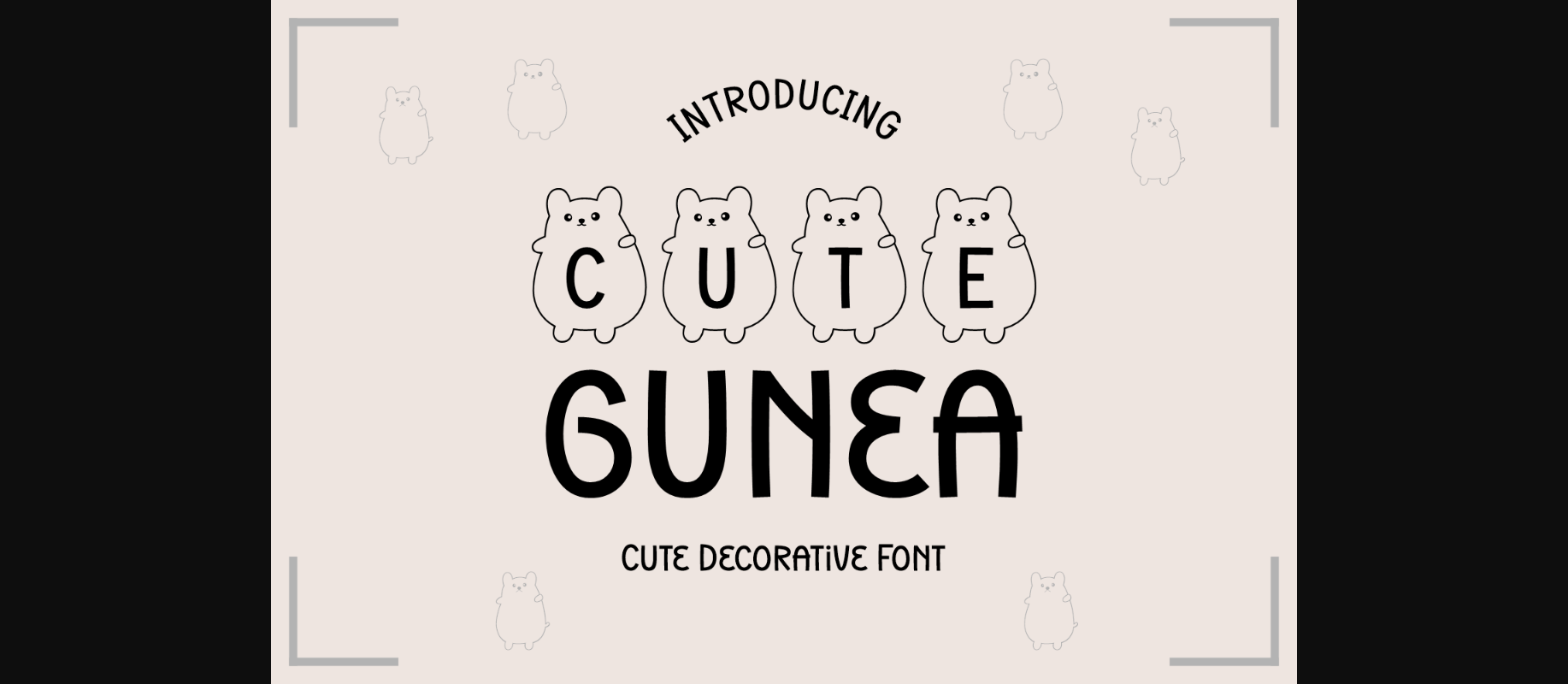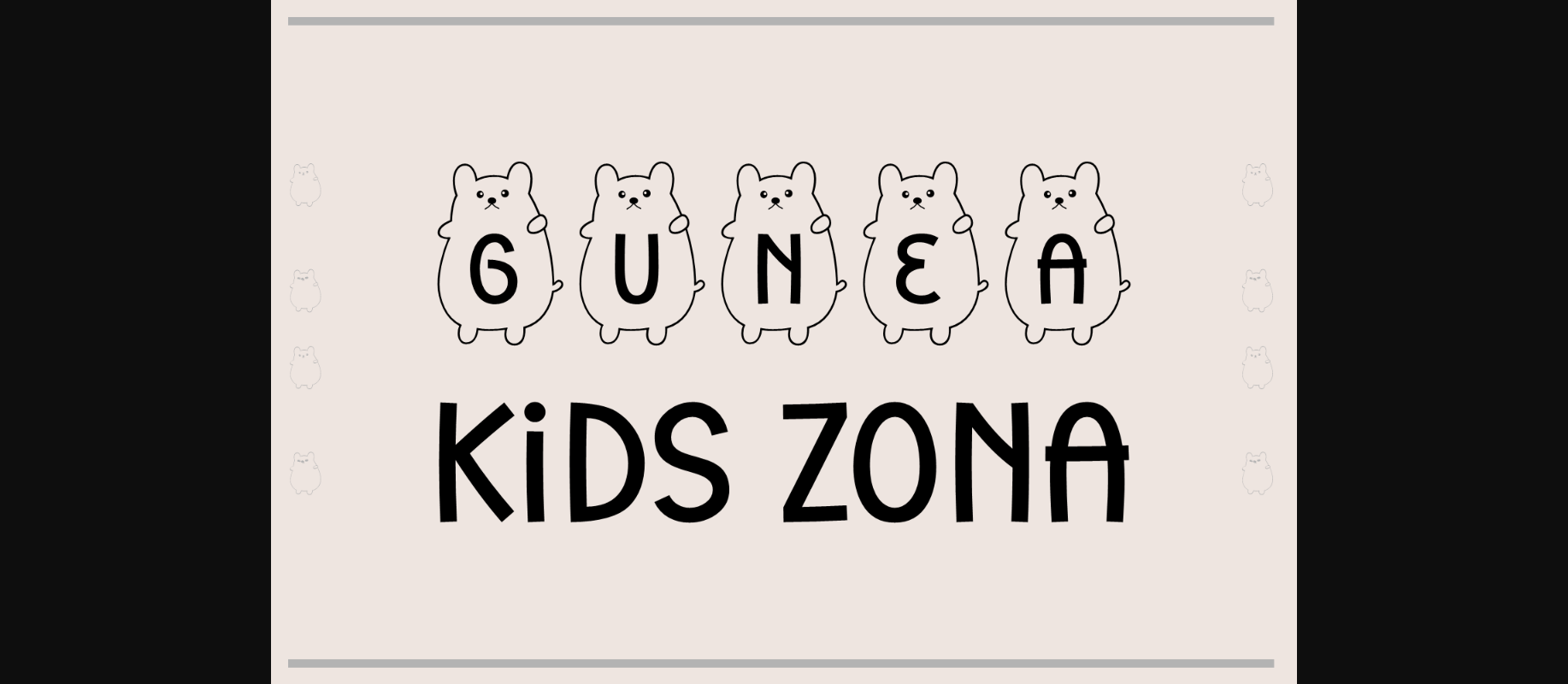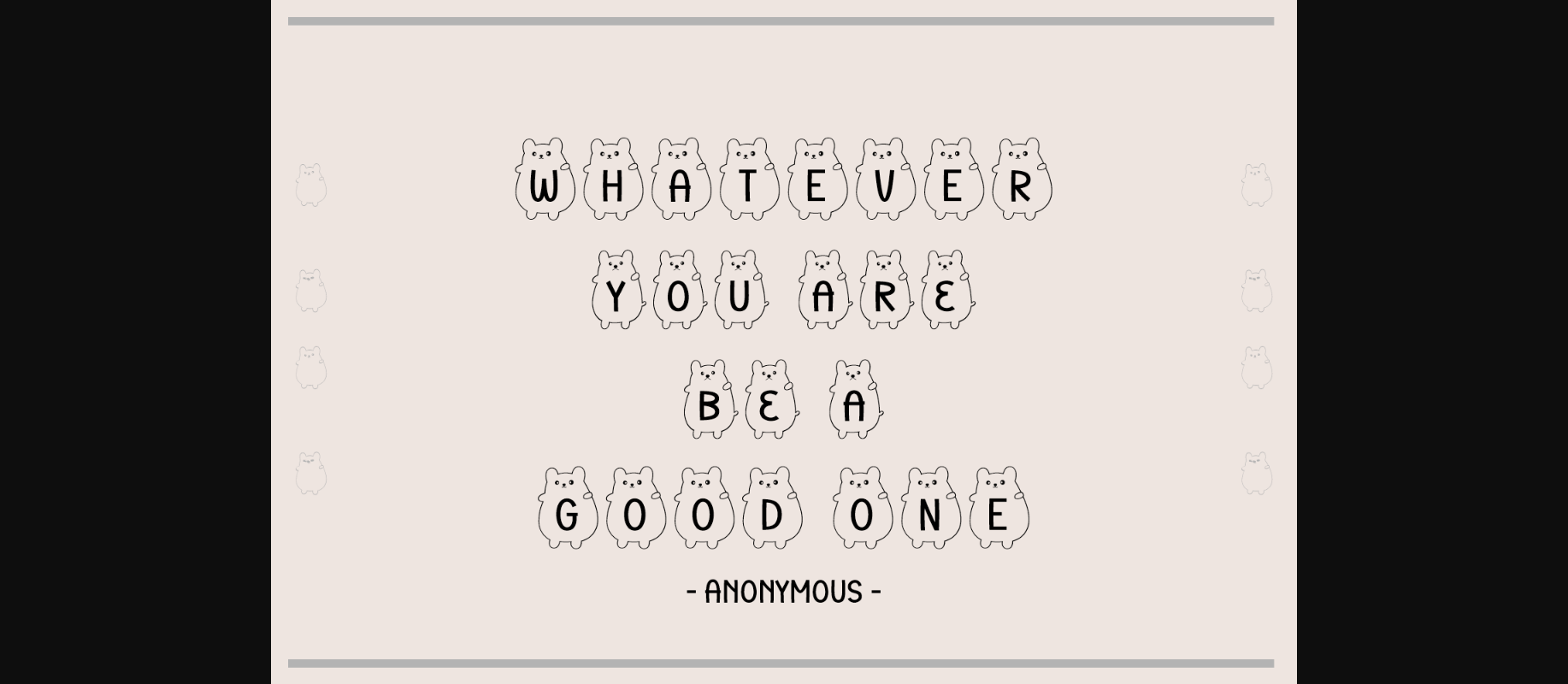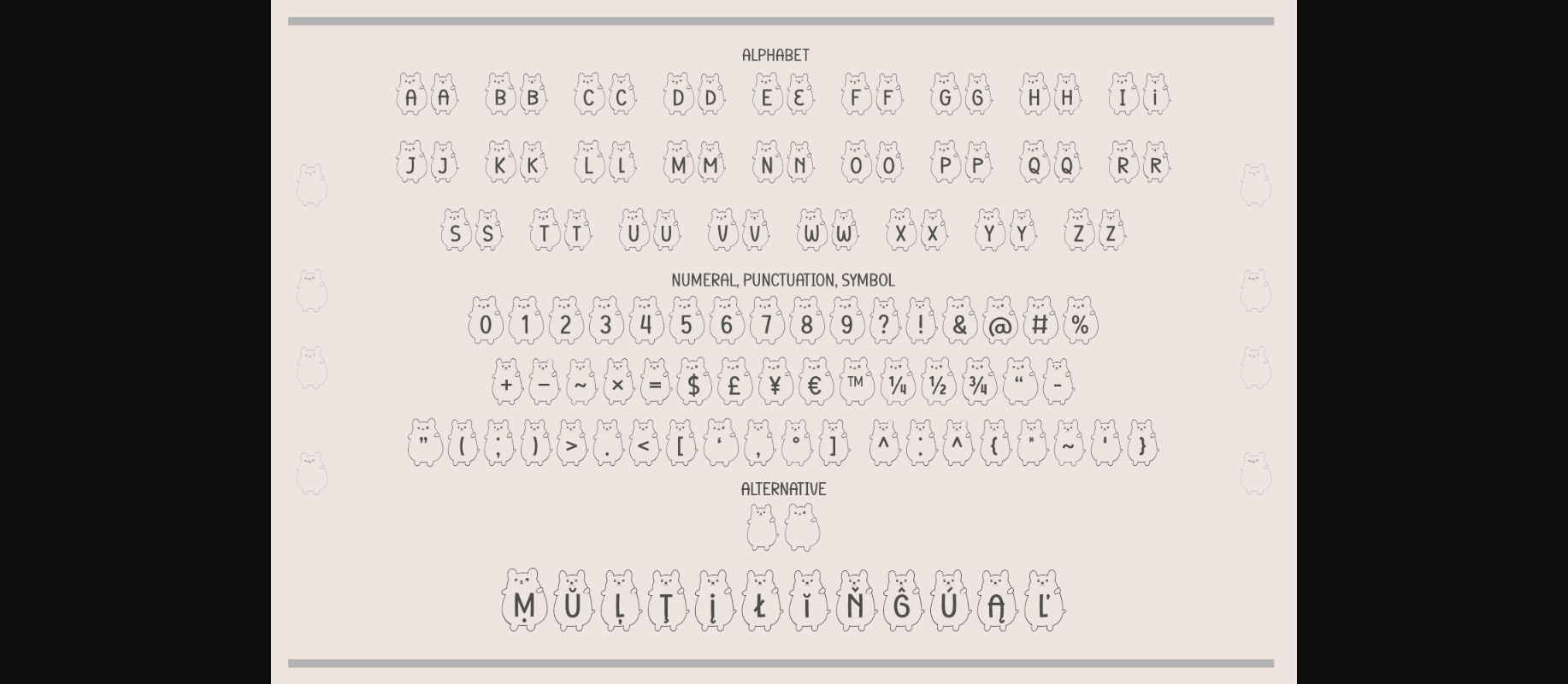
About Cute Gunea Font
Cute Gunea Font: A whimsical and adorable decorative font featuring charming letters creatively illustrated on the backs of lovable guinea pigs. Perfect for adding a touch of cuteness to your design projects!